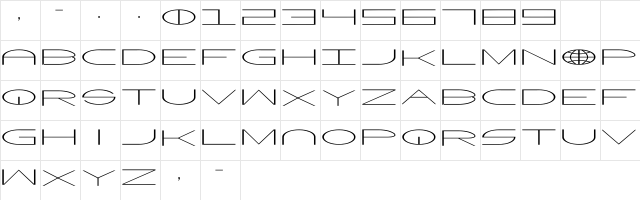
WorldNet Regular
Design Context for WorldNet
WorldNet is a composed and adaptable typeface that performs quietly and consistently across a wide range of design contexts.